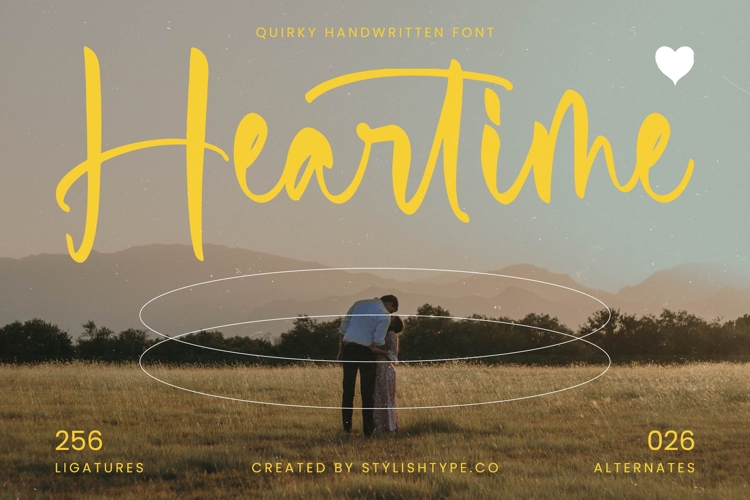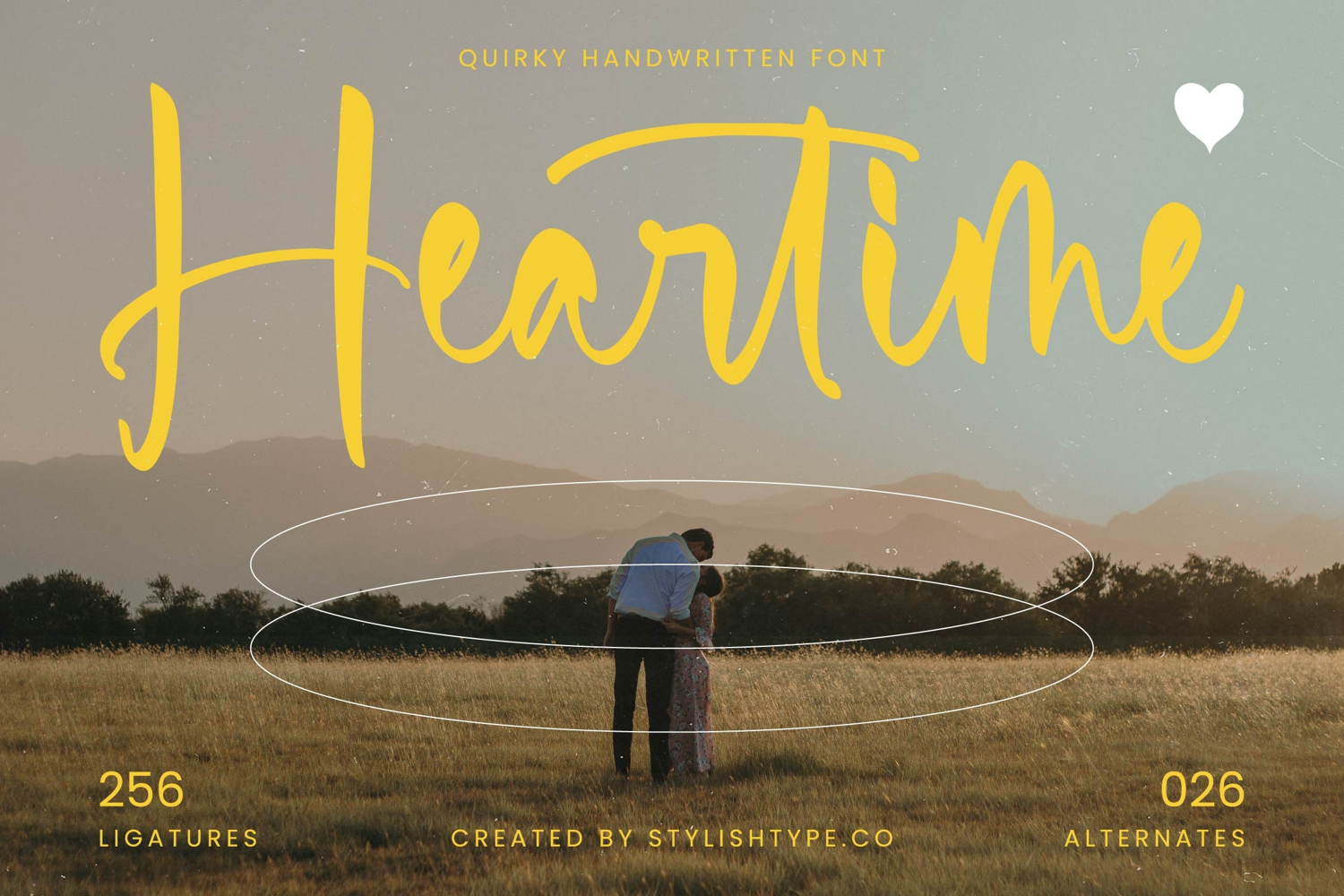
Heartime - Quirky Handwritten Font
Discover the unparalleled charm and authentic handcrafted appeal of Font Heartime - Quirky Handwritten Font Script, a typeface designed to infuse your projects with genuine . Its flowing, organic lines and subtly varied strokes mimic the warmth of real handwriting, offering an inviting and approachable aesthetic. This script font masterfully balances playfulness with elegance, making it an ideal choice for designs seeking to convey sincerity and a touch.
Unleash boundless creative potential with Font Heartime - Quirky Handwritten Font Script, featuring an impressive 256 ligatures and 26 alternates that allow for endless customization and a truly unique, non-repeating feel. These extensive stylistic sets ensure your typography looks genuinely handmade, avoiding the uniformity of standard fonts. With its extensive multilingual support, Font Heartime - Quirky Handwritten Font Script adapts seamlessly across global markets, making it incredibly versatile for international projects and expanding your brand's reach.